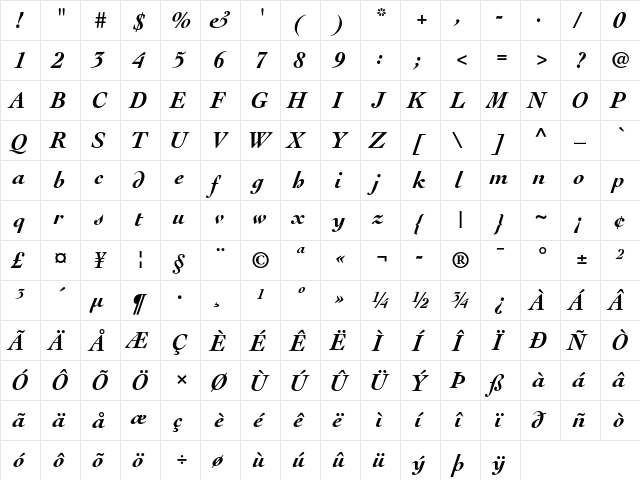
Cochin Bold Italic
Design Context for Cochin Typeface
Cochin offers clean, dependable letterforms without strong stylistic allegiance, making it a practical choice for designers who need flexibility. The slanted form adds forward momentum and visual energy. The heavy weight commands attention and anchors typographic hierarchies.
Pro Tip: Try Cochin for annotation and caption copy alongside an upright companion — the contrast in angle creates a dynamic but ordered typographic system.